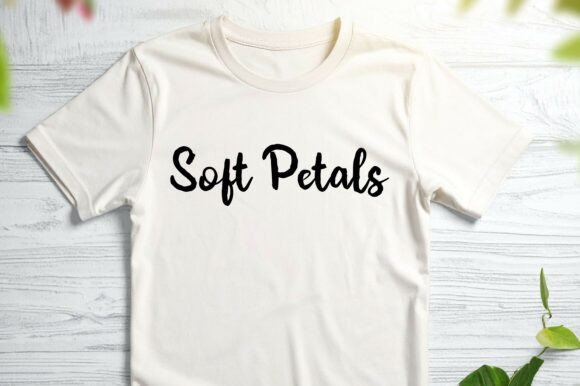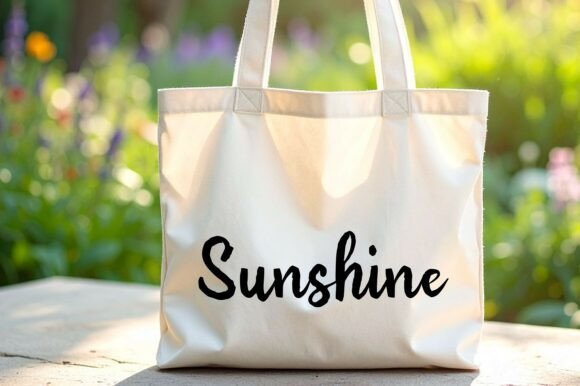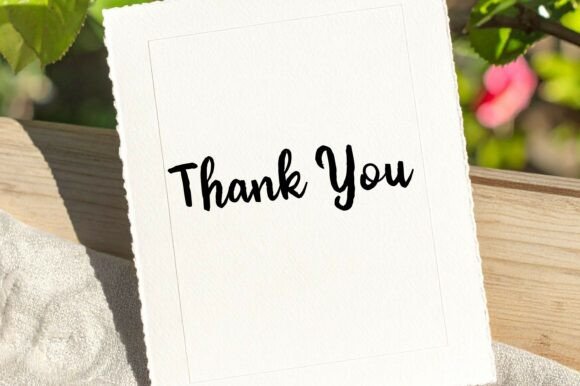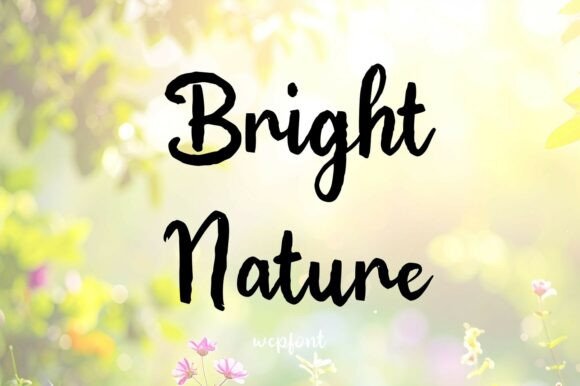
Discover the Beauty of Bright Nature Font: Elevate Your Designs with Organic Elegance
Imagine a typeface that embodies the essence of nature, effortlessly merging warmth, fluidity, and elegance. Welcome to Bright Nature, a dynamic script font that redefines the boundaries of creative expression. This stunning font is synonymous with organic sophistication, positivity, and a sense of handcrafted charm, making it the perfect choice for designers and crafters seeking to infuse their work with a touch of natural beauty.
The Essence of Bright Nature
Bright Nature’s design is characterized by its effortlessly flowing strokes and connected lines, which evoke a sense of delicate, handcrafted care. This font appears to have been molded by the gentle hands of Mother Nature herself, imbuing it with a unique, organic feel that resonates with audiences. The fluidity of Bright Nature’s script is reminiscent of the natural world, where every line, curve, and movement seems to flow harmoniously.
Unleash Your Creativity with Bright Nature
Whether you’re a designer, crafter, or simply a creative enthusiast, Bright Nature offers a world of possibilities. This versatile font seamlessly adapts to various design applications, from supporting background roles to taking center stage as the focal point. Its innate ability to balance and harmonize with other design elements makes it an excellent choice for a wide range of creative projects, including:
- Packaging and labels
- Invitations and stationery
- Digital and print media
The Benefits of Bright Nature Font
So, what sets Bright Nature apart from other fonts? Here are just a few benefits that make it an attractive choice for designers and crafters:
- Organic elegance: Bright Nature’s natural, fluid strokes evoke a sense of sophistication and refinement.
- Positivity and warmth: This font radiates a sense of warmth, friendliness, and approachability, making it perfect for designs that aim to connect with audiences on an emotional level.
- Versatility: Bright Nature adapts effortlessly to various design contexts, ensuring that your creative vision is always realized with clarity and impact.
- Clarity and readability: The font’s welcoming and clear form ensures that your message is conveyed with precision and ease, making it ideal for both digital and print applications.
Who is Bright Nature Font for?
Bright Nature is perfect for designers, crafters, and creative professionals who value:
- Clarity and simplicity: Those who appreciate clean, elegant design and prioritize clear communication.
- Gentle aesthetics: Individuals who favor soft, organic shapes and a natural visual language.
- Heartfelt sentiments: Designers and crafters who aim to create emotional connections with their audiences through their work.
Bright Nature Font is more than just a typeface – it’s an experience. By incorporating the essence of nature into its design, this font offers a unique opportunity to connect with audiences on a deeper level. With its organic elegance, positivity, and versatility, Bright Nature is poised to become your go-to font for a wide range of creative projects. Discover the beauty of Bright Nature and elevate your designs with the warmth, fluidity, and sophistication that only this exceptional font can provide.
Unlock the full potential of Bright Nature Font and let its natural beauty shine in your next design project. Whether you’re a seasoned designer or just starting out, this dynamic script typeface is sure to inspire and captivate your audience.